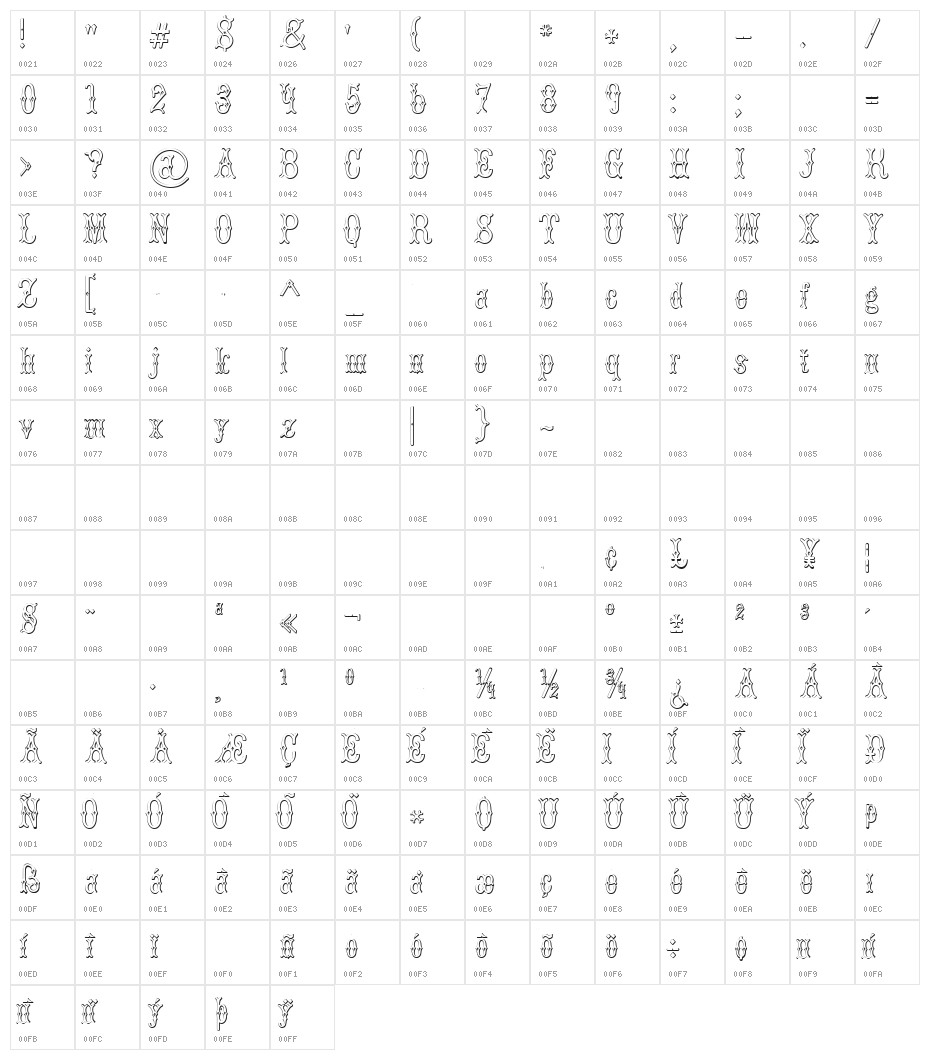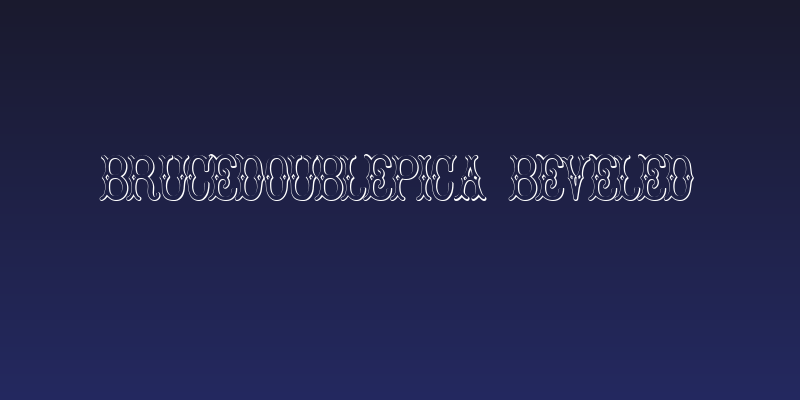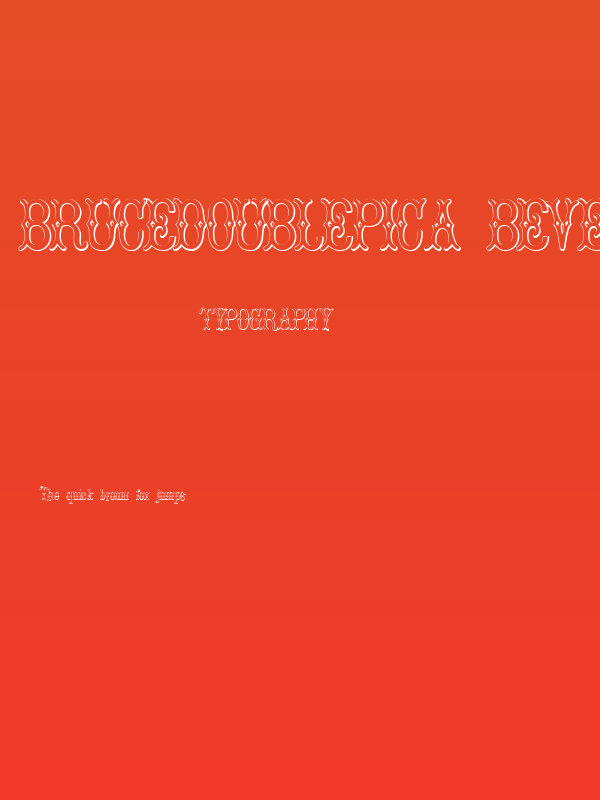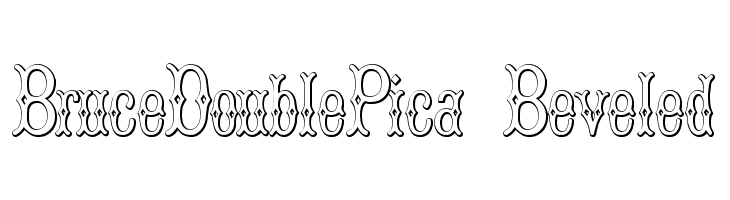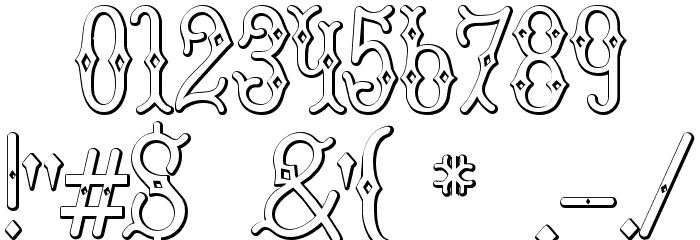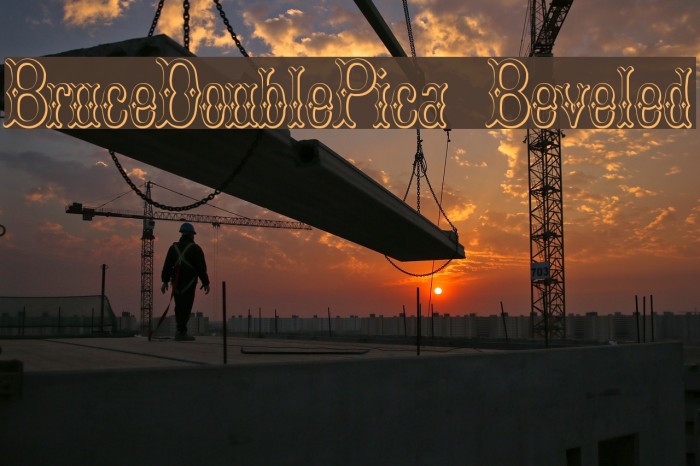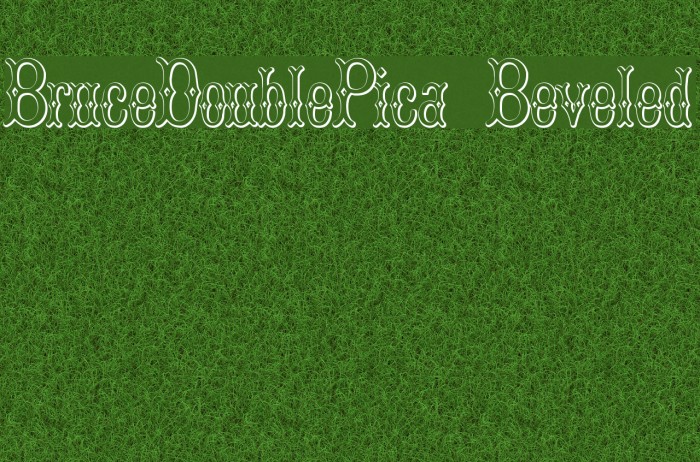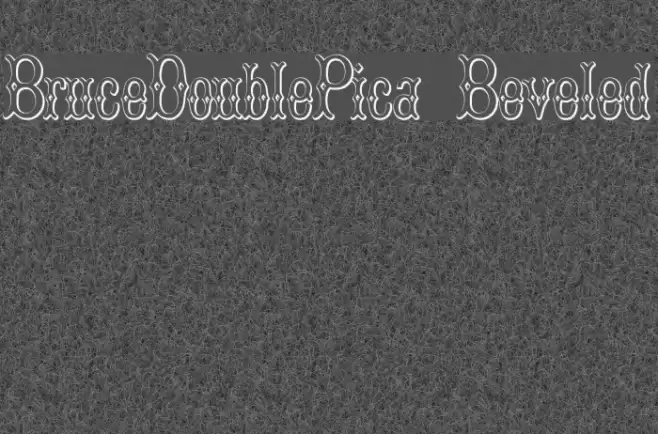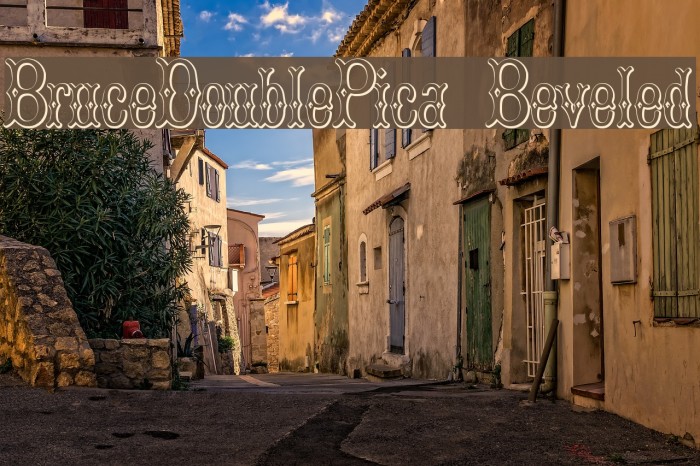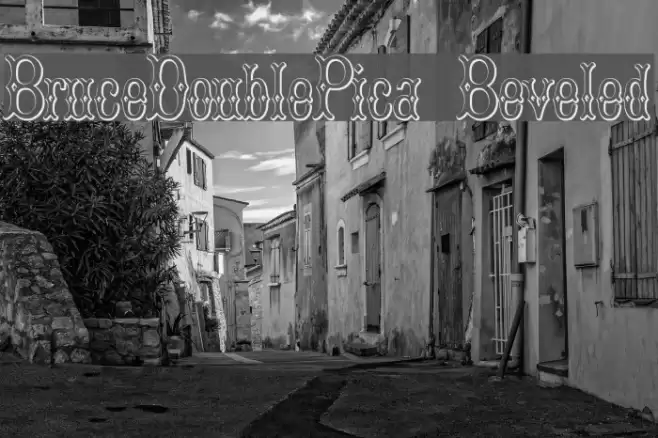
BruceDoublePica Beveled Font
BruceDoublePica Beveled Description
This font features a bold, decorative style with a beveled effect that gives it a three-dimensional appearance. The characters are ornate, with intricate detailing that adds a sense of elegance and sophistication. The uppercase letters are particularly striking, with their elaborate curves and flourishes. The lowercase letters maintain the same decorative style, ensuring consistency throughout. Numbers and special characters are equally detailed, making this font versatile for various uses. The overall design is reminiscent of vintage signage or classic poster typography, making it ideal for projects that require a touch of nostalgia or grandeur.
| Overall Style | Vintage |
| Use Case | Headlines, Logos, Decorative text |
| Proposed Projects | Ideal for vintage-themed posters, signage, branding, and any project requiring a classic, ornate touch. |